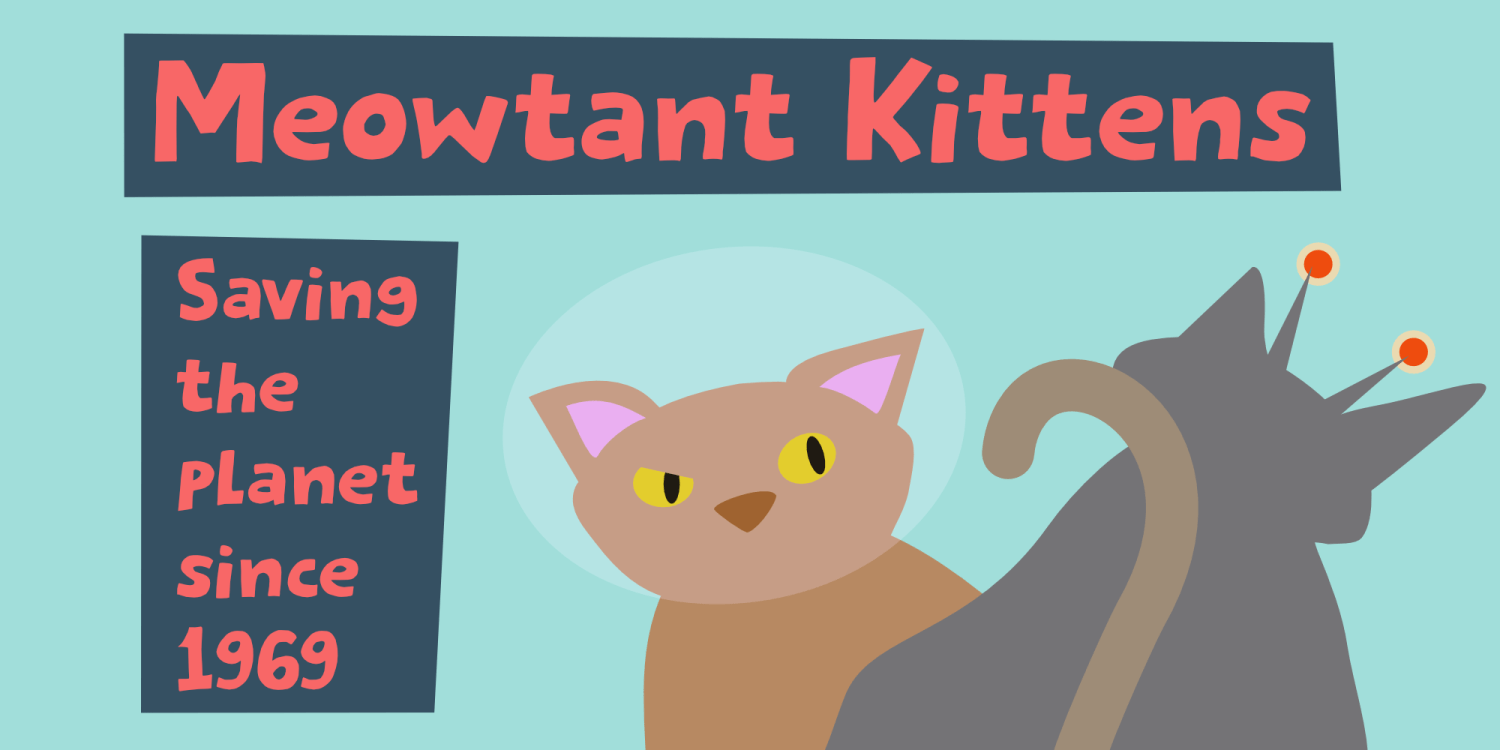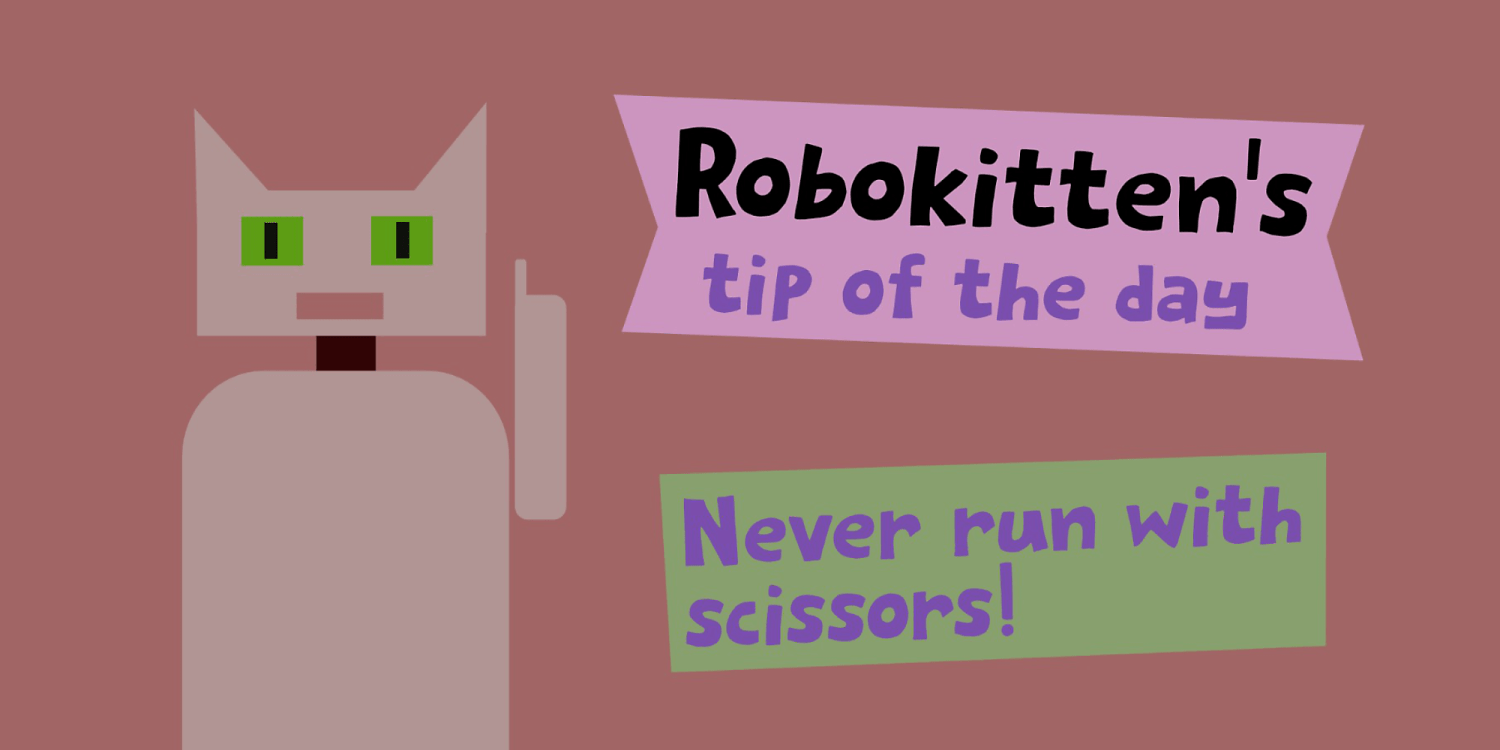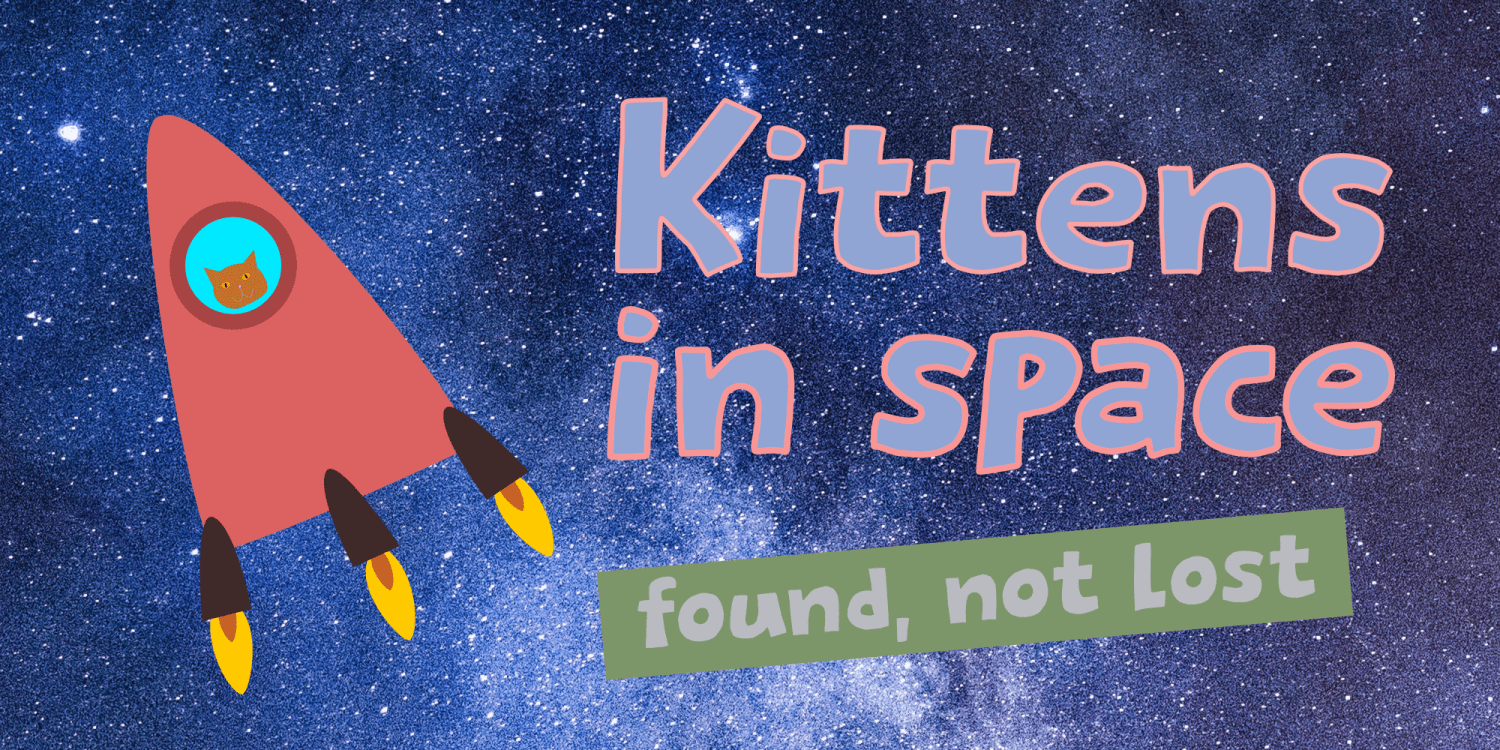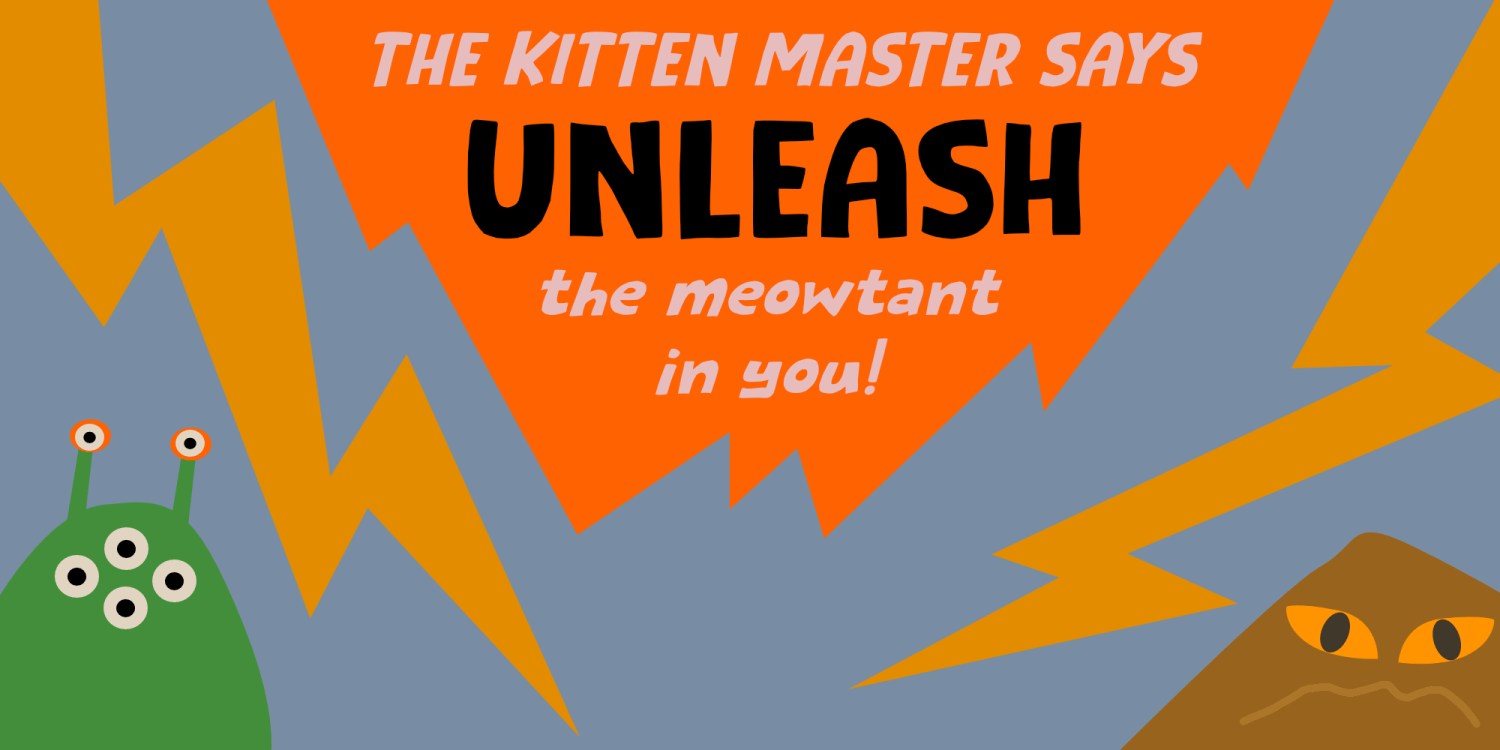
Meowtant Kittens
My youngest son Boris has his birthday in a week. He turns 8, and he loves to play with those Danish building blocks - you know what I’m talking about. Last year he developed an interest in Star Wars n(no idea how that came to be), so we bought him some Star Wars-themed blocks for his birthday. I am now watching the movies with him and it is fun to witness his enthusiasm. The only drawback is the fact that we now seem to have a Chewbacca in our home…
Meowtant Kittens is a font I drew with a fineliner and then digitized. Of course the name was influenced by the movies I am watching with Boris, even though they don’t feature any Meowtant Kittens.